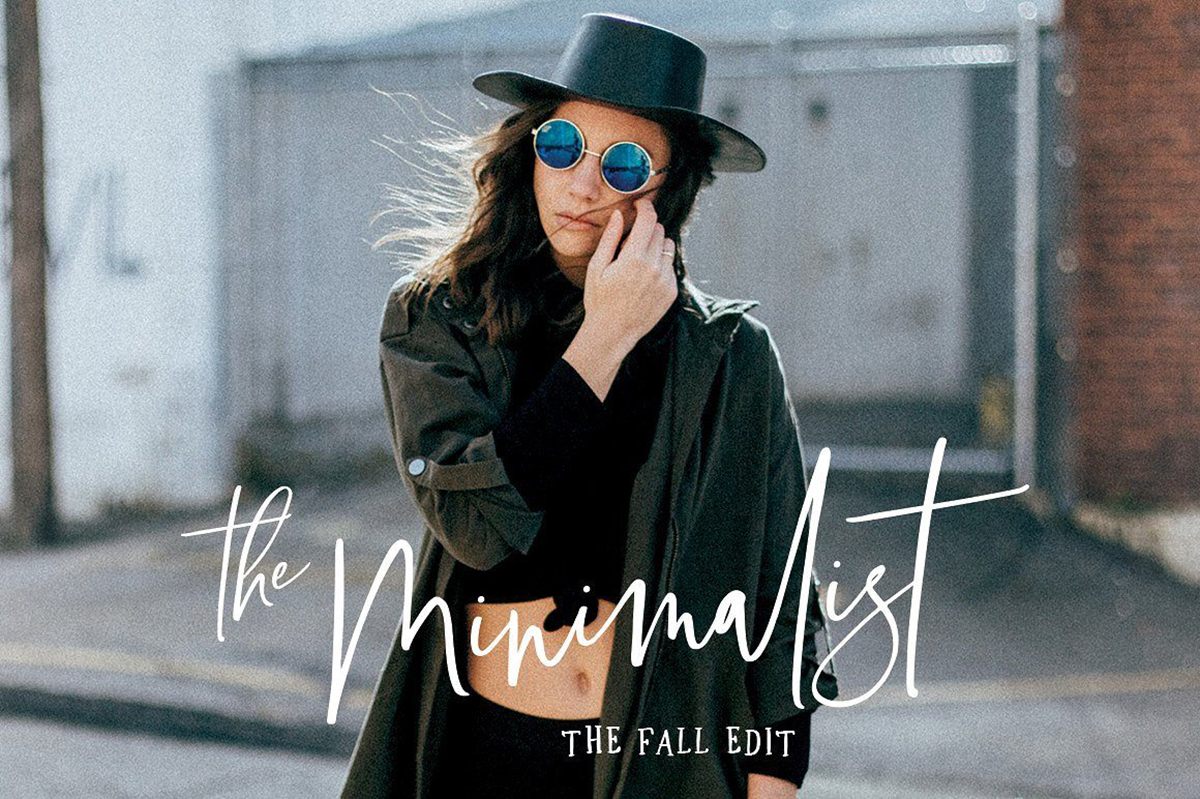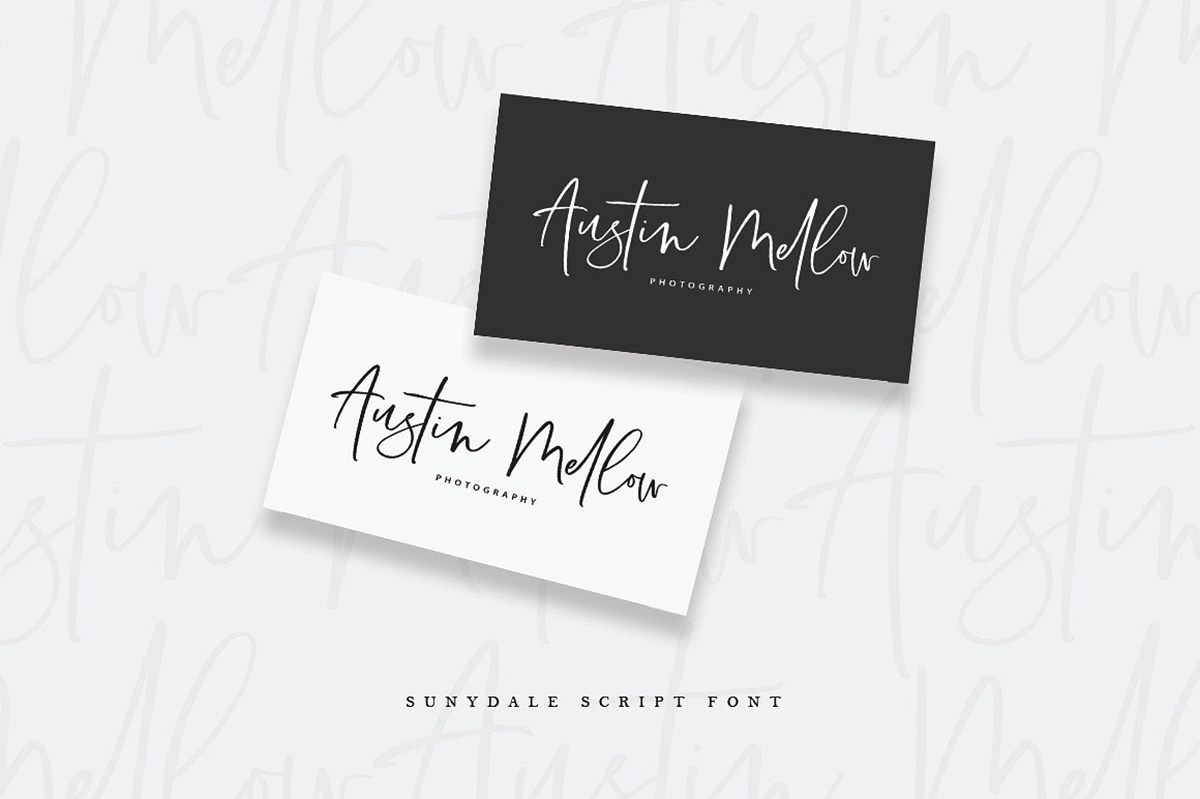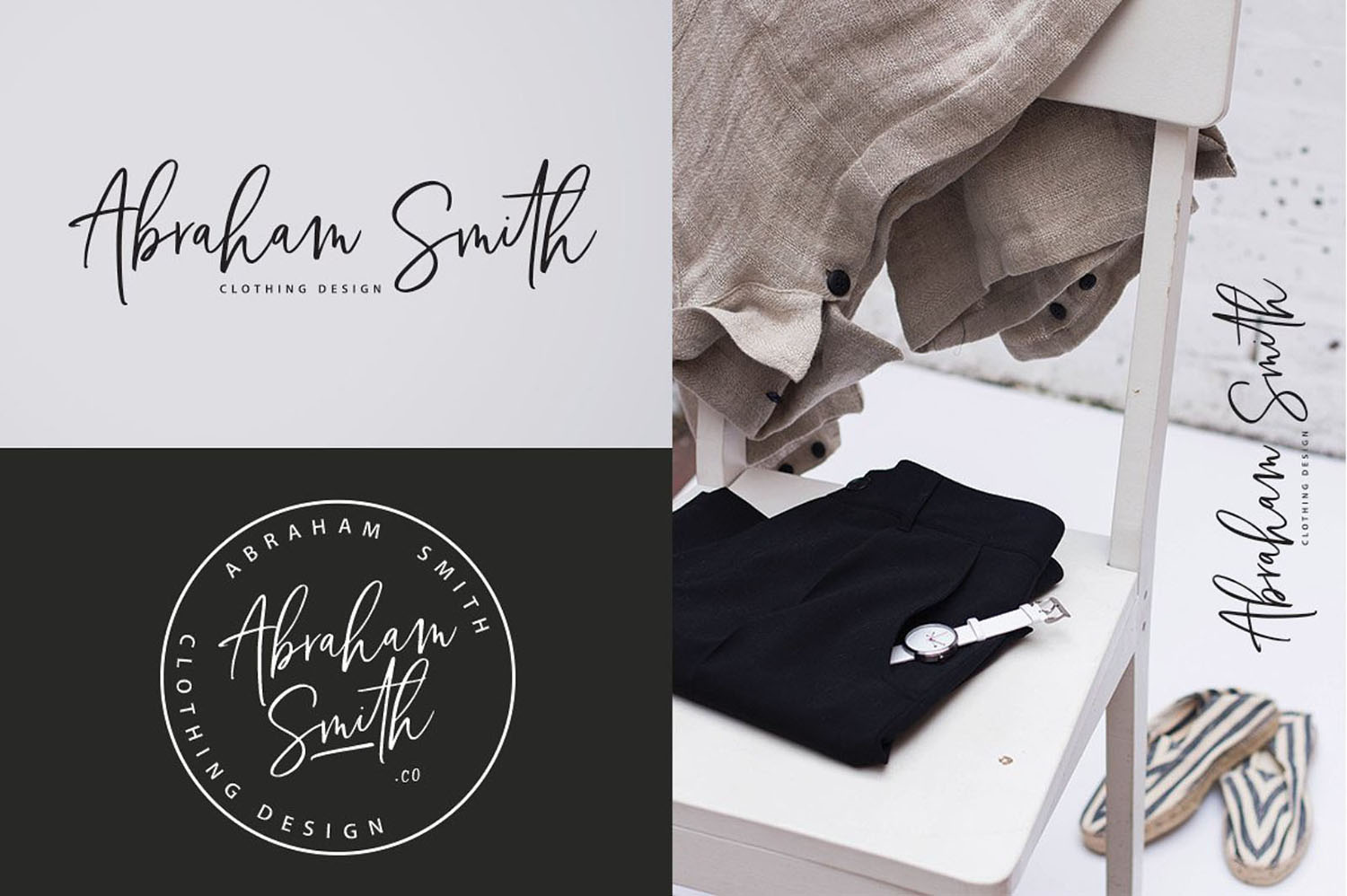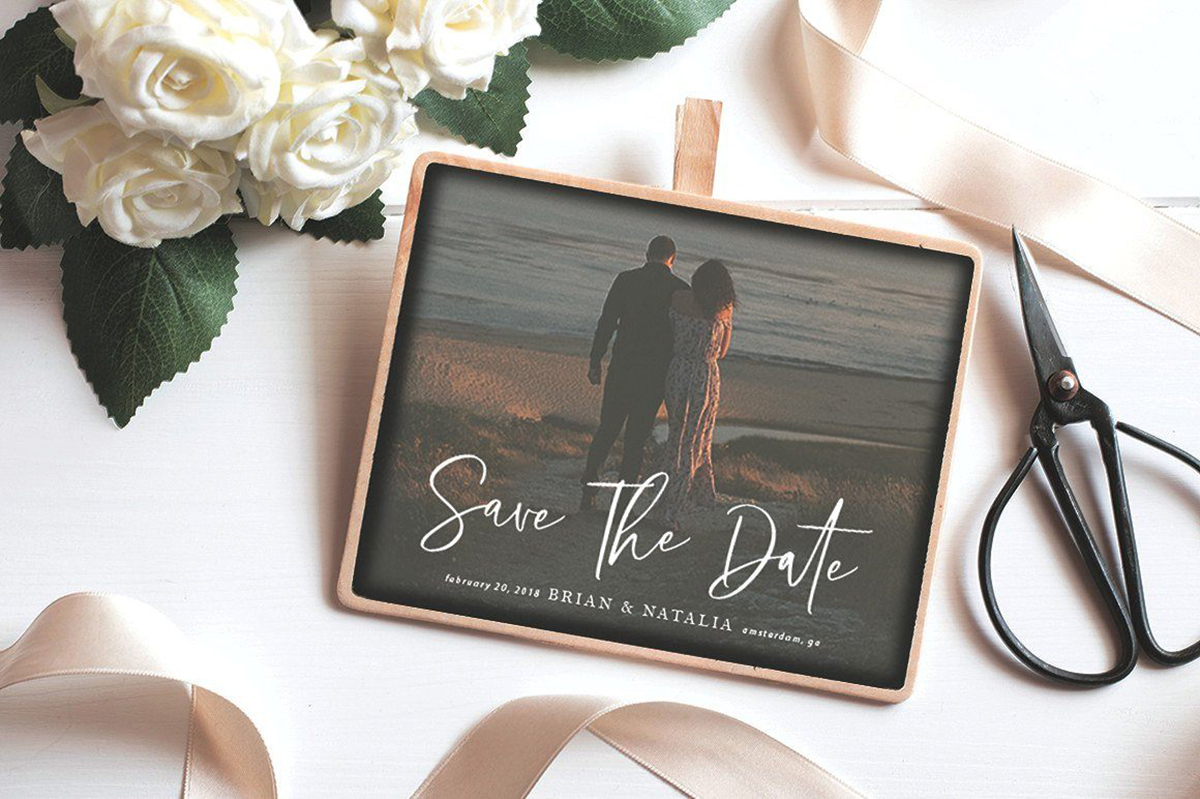
Sunydale Free Font Duo
Sunydale Free Font Duo is a classy, contemporary pair of script and serif fonts. It is free-flowing, feminine, fashionable, and friendly. Sunydale is perfect for fashion, e-commerce brands, trend blogs, or any business that wants to appear classy and chic. This free typeface was designed by talented Sizimon. If you like it don’t forget to check out the full version.